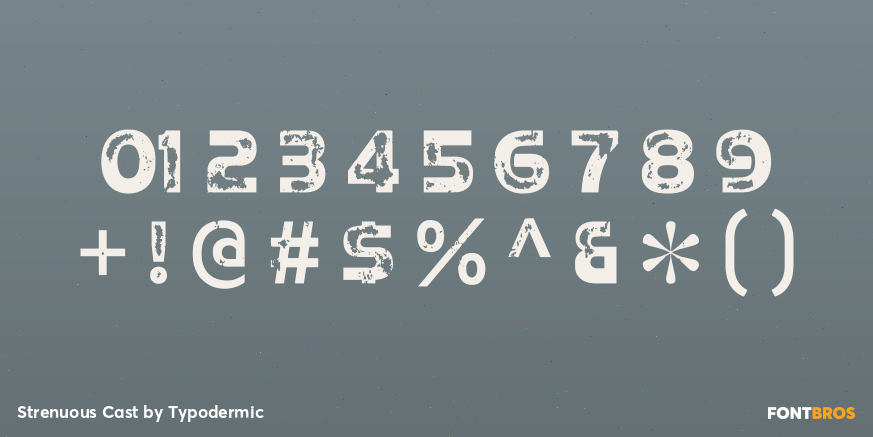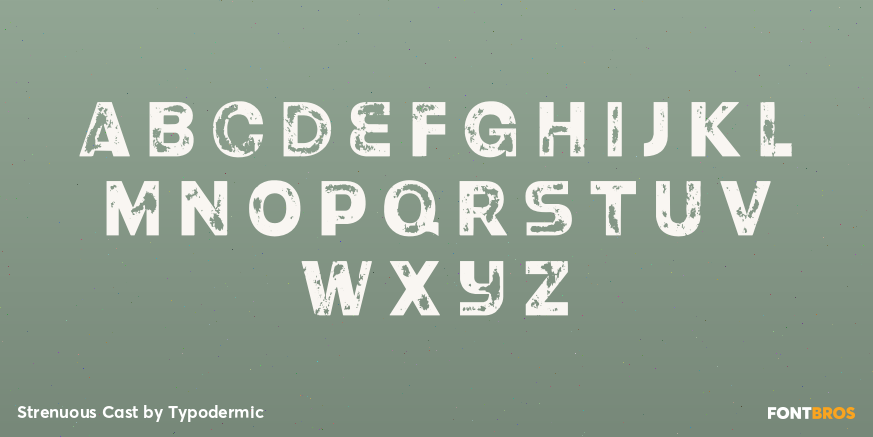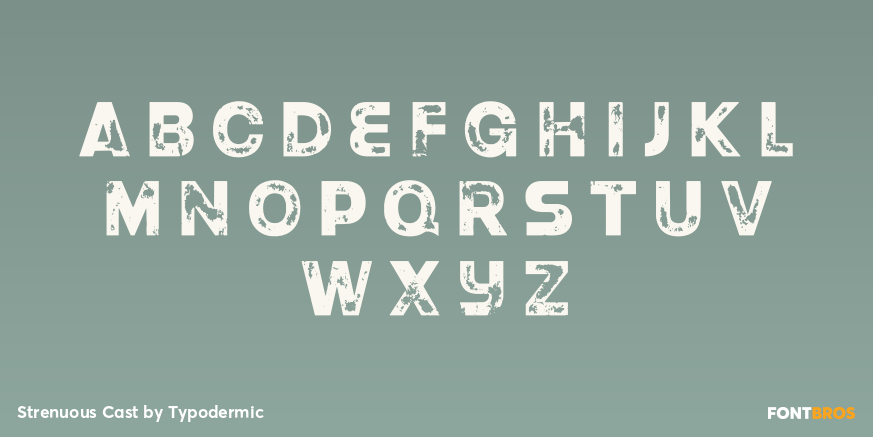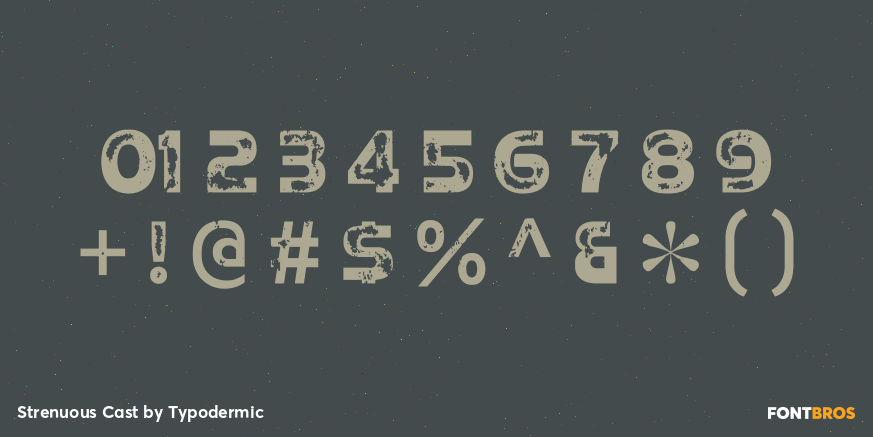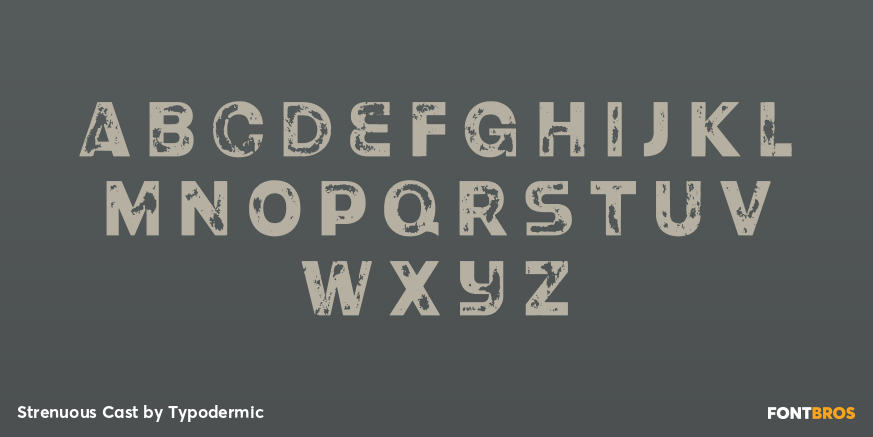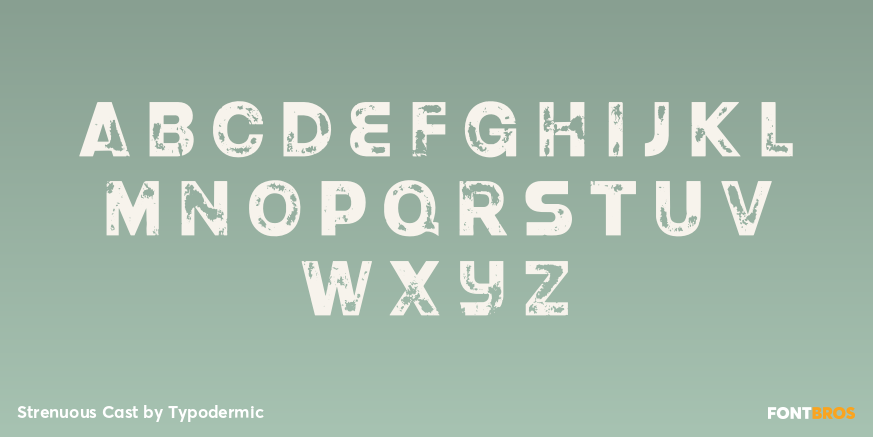
Strenuous Cast
Strenuous Cast pushes the family's heavy unicase shapes into a distressed print treatment. Broad, irregular patches of missing ink break through the otherwise solid strokes, giving each letter a worn, physical surface while preserving the compact 1970s skeleton underneath. Unlike Strenuous 3D, Cast gets its impact from erosion rather than outline and shadow.
Use Strenuous Cast for crime and neo-noir titles, archival music packaging, faded nightlife posters, vintage-fashion graphics, distressed product names, and campaign headings that should feel printed, handled, or weathered. Keep it large and brief so the broken areas register without obscuring the word, and pair it with a clean Strenuous weight when the project needs dates, captions, or repeated secondary copy.
Strenuous Cast by Typodermic